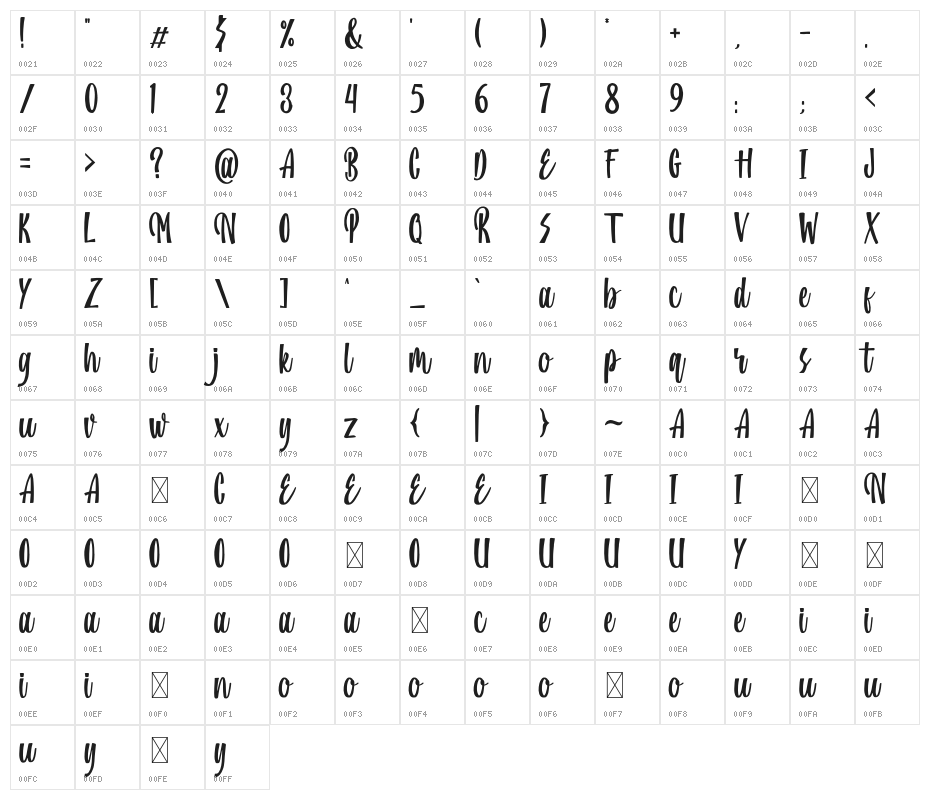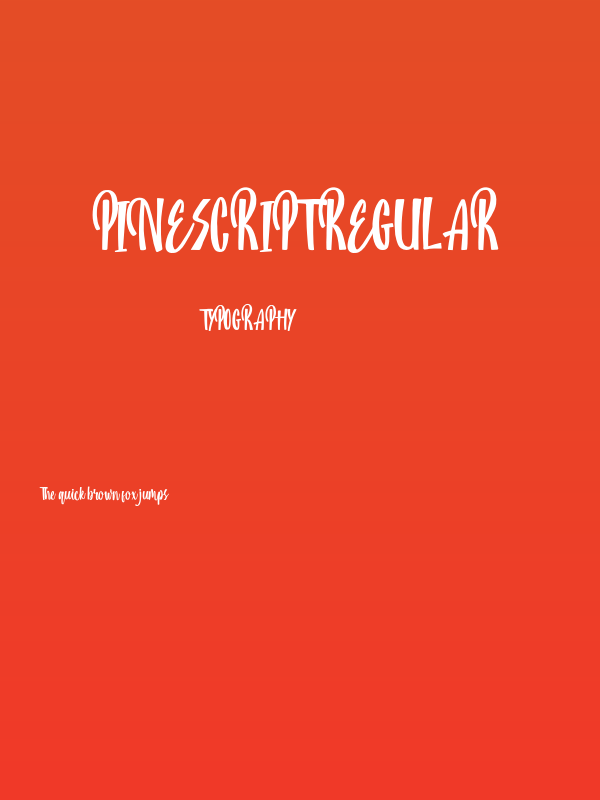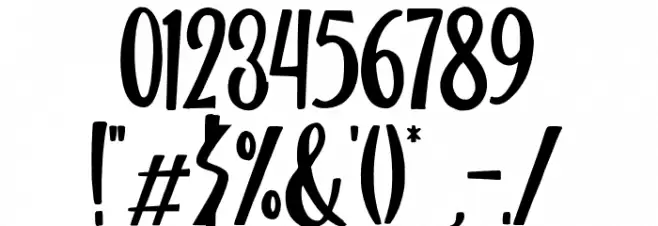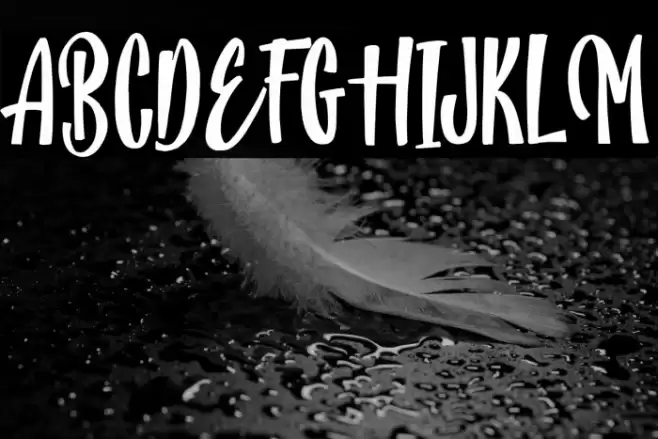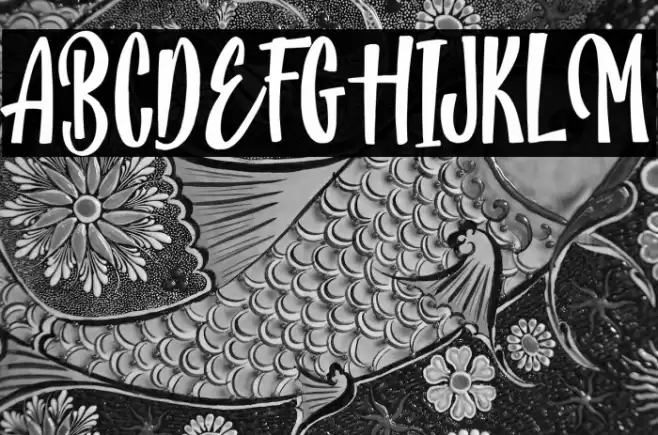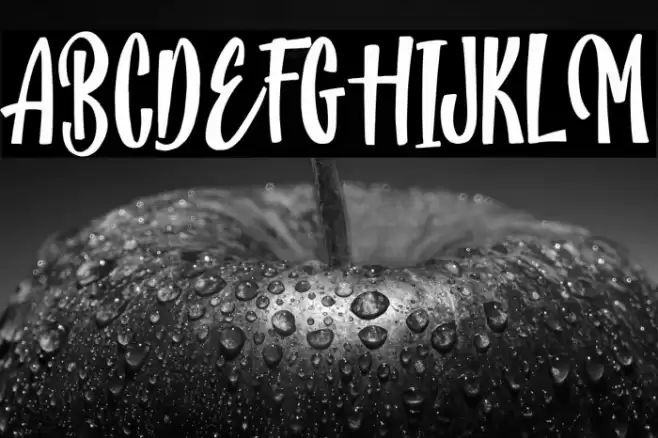
PineScriptRegular Font
PineScriptRegular Description
This font features a playful and energetic script style with a hand-drawn appearance. The uppercase letters are bold and slightly condensed, giving them a strong presence, while the lowercase letters maintain a fluid and connected script form. The numbers are consistent with the overall style, offering a cohesive look. Special characters are creatively integrated, maintaining the whimsical and artistic feel. The strokes vary in thickness, adding a dynamic and lively quality to the text. This font is perfect for projects that require a personal and informal touch, such as invitations, greeting cards, or branding for creative businesses.